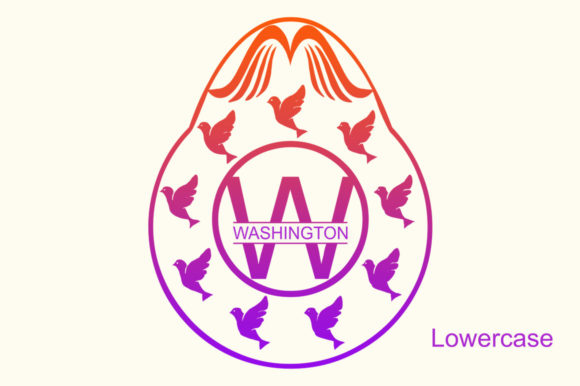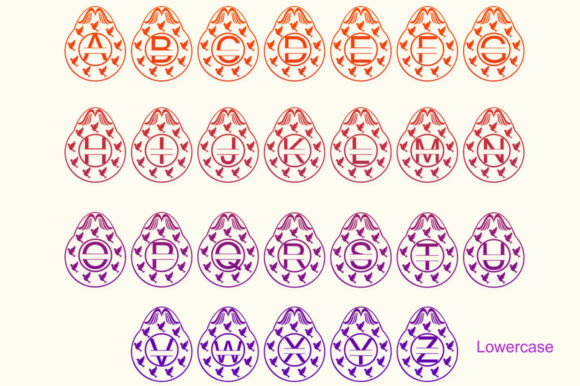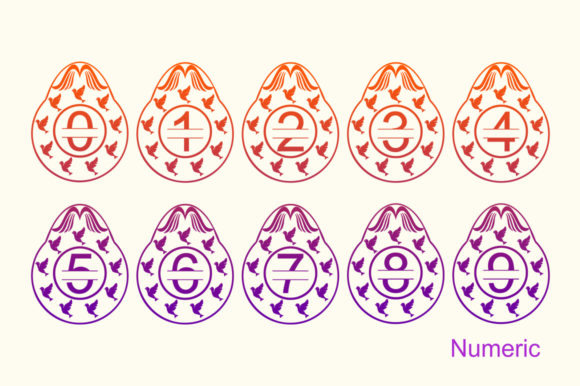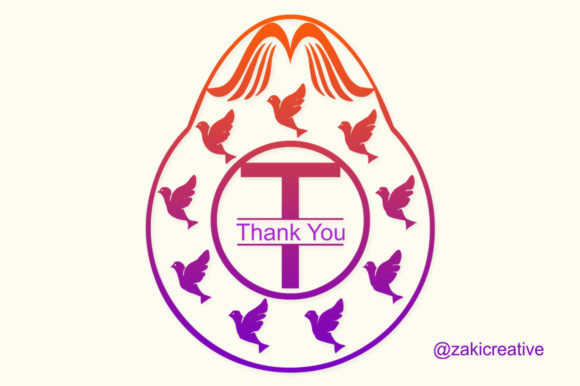
Dove Egg Monogram Font: A Charming Decorative Font for Creative Projects
Are you looking for a font that adds a touch of elegance and whimsy to your creative projects? Look no further than the Dove Egg Monogram Font. This charming decorative font is perfect for designers and crafters who want to create beautiful and eye-catching designs that stand out from the crowd.
What is Dove Egg Monogram Font?
Dove Egg Monogram Font is a decorative font that features intricate and delicate monogram designs. The font is inspired by traditional monogramming techniques and has a vintage, hand-drawn feel that gives it an authentic and charming look. The font is perfect for creating gorgeous invitations, beautiful stationary art, eye-catching social media posts, and cute greeting cards.
Features of Dove Egg Monogram Font
- Unique and Delicate Designs: The Dove Egg Monogram Font features unique and delicate monogram designs that are sure to impress. Each letter is carefully crafted to create a beautiful and intricate design that is perfect for a variety of creative projects.
- Authentic and Vintage Feel: The font has an authentic and vintage feel that gives it a charming and elegant look. The hand-drawn designs make it perfect for creating traditional and modern designs that stand out from the crowd.
- Versatile: The font is versatile and can be used for a variety of creative projects, including invitations, stationary art, social media posts, and greeting cards.
Uses of Dove Egg Monogram Font
The Dove Egg Monogram Font is perfect for a variety of creative projects, including:
- Invitations: Create gorgeous invitations for weddings, baby showers, and other special occasions using the Dove Egg Monogram Font.
- Stationary Art: Use the font to create beautiful stationary art, including notecards, journals, and planners.
- Social Media Posts: Create eye-catching social media posts using the Dove Egg Monogram Font. The font is perfect for creating graphics, quotes, and other social media content.
- Greeting Cards: Use the font to create cute and charming greeting cards for special occasions, including birthdays, holidays, and anniversaries.
- Experiment with Different Colors: The Dove Egg Monogram Font looks great in a variety of colors. Experiment with different colors to find the one that works best for your design.
- Use it with Other Fonts: The font can be used with other fonts to create a unique and interesting design. Experiment with different font combinations to find the one that works best for your project.
- Pay Attention to Size: The font can be used at a variety of sizes. Pay attention to the size of the font to ensure that it is legible and easy to read.
The Dove Egg Monogram Font is a charming decorative font that is perfect for designers and crafters who want to create beautiful and eye-catching designs. With its unique and delicate designs, authentic and vintage feel, and ease of use, this font is sure to become a favorite in your design arsenal. Whether you’re creating invitations, stationary art, social media posts, or greeting cards, the Dove Egg Monogram Font is the perfect choice.